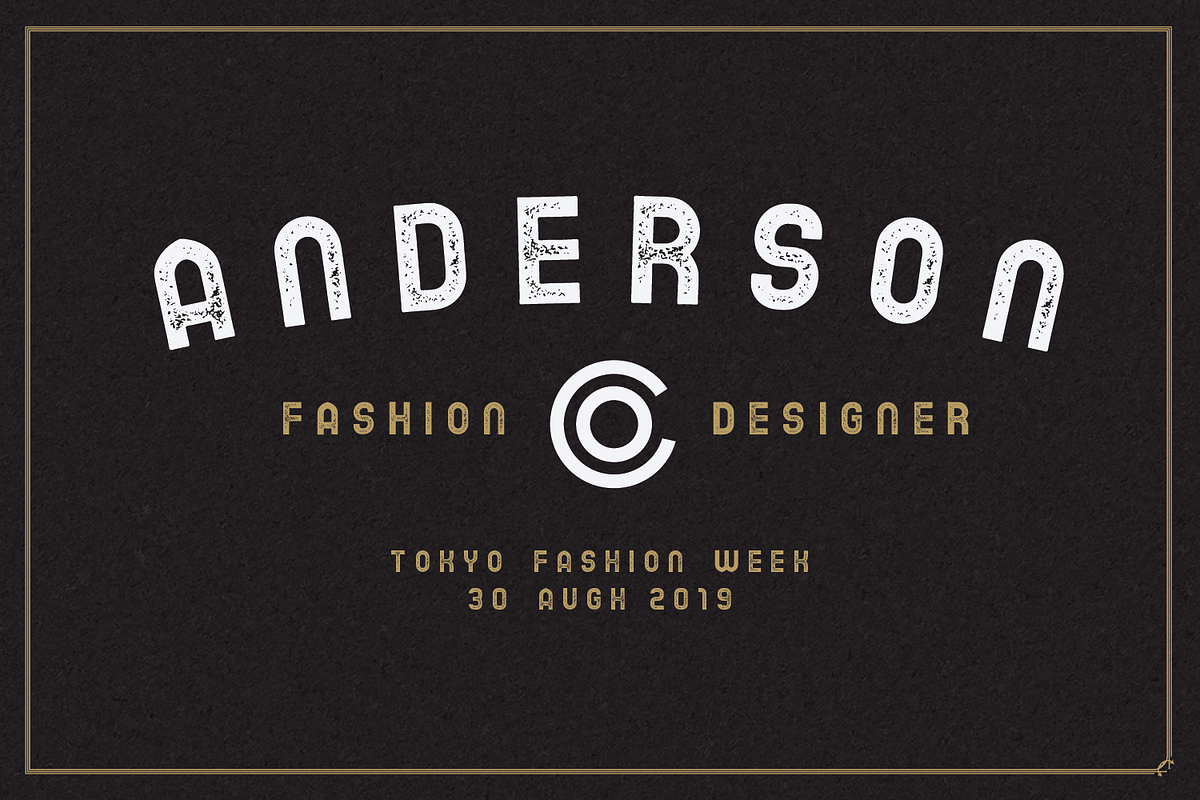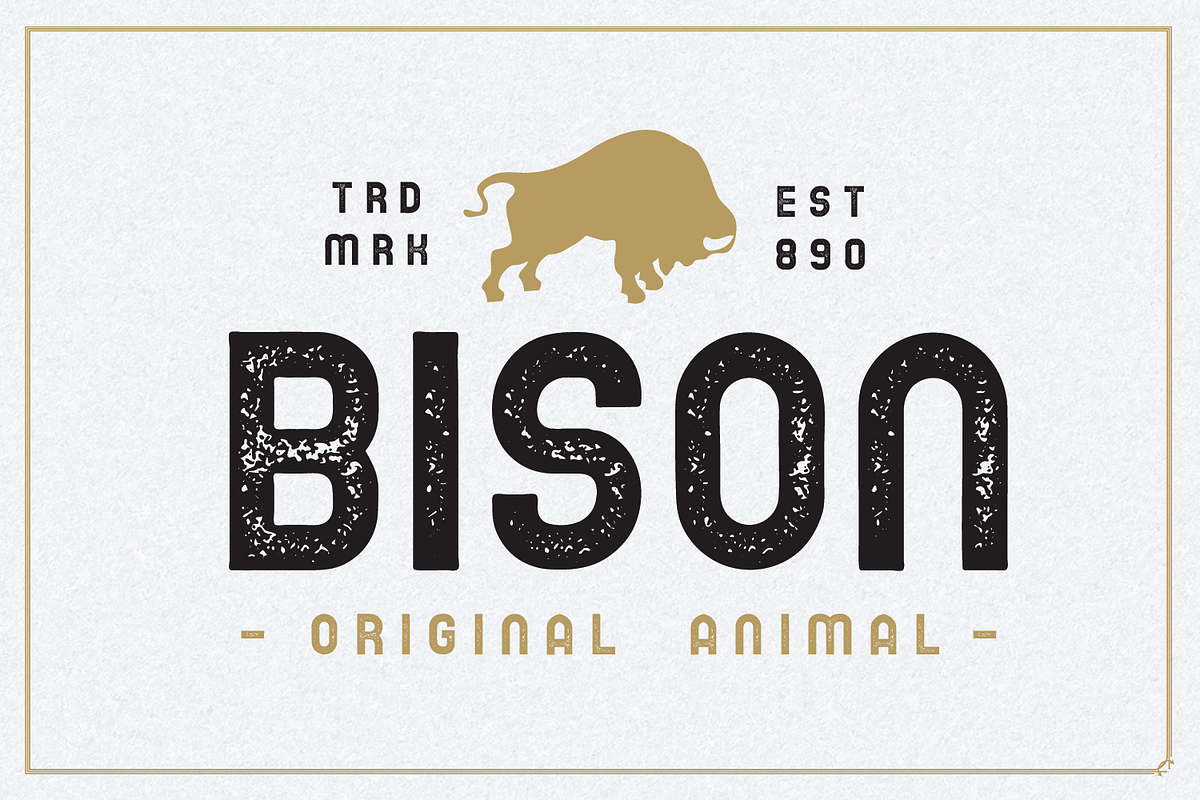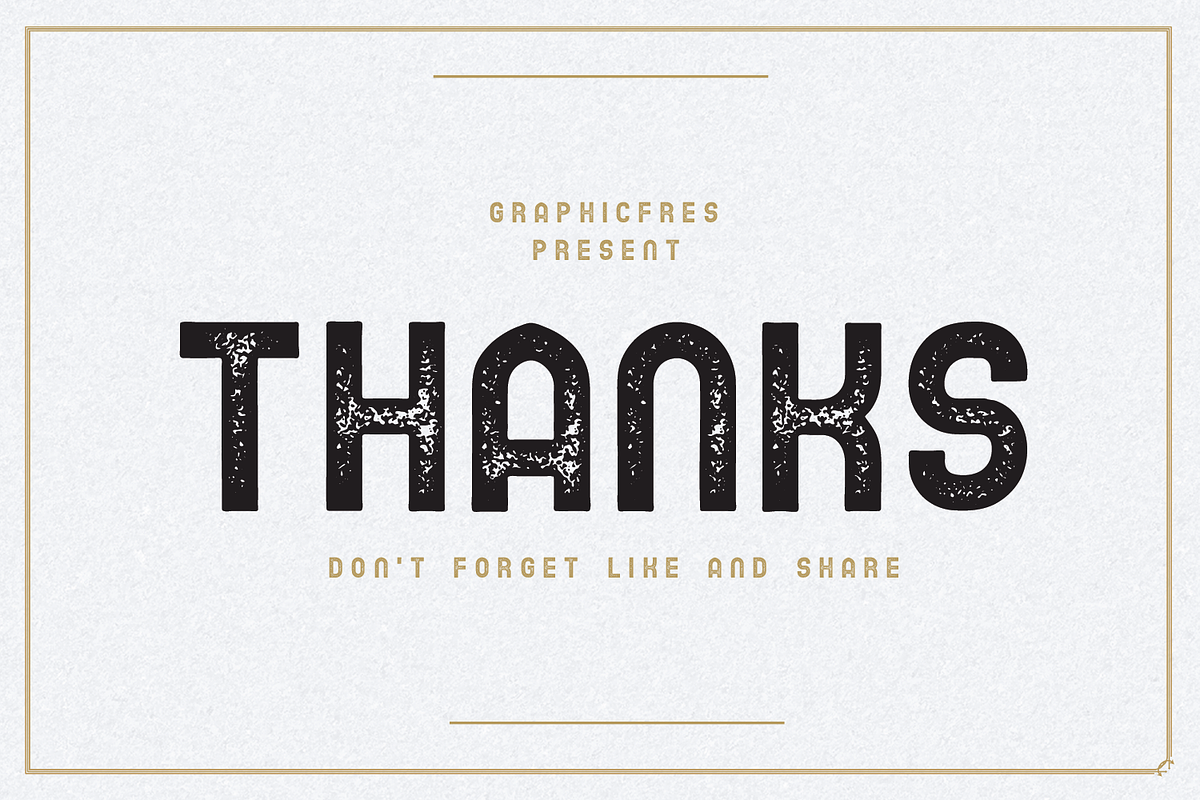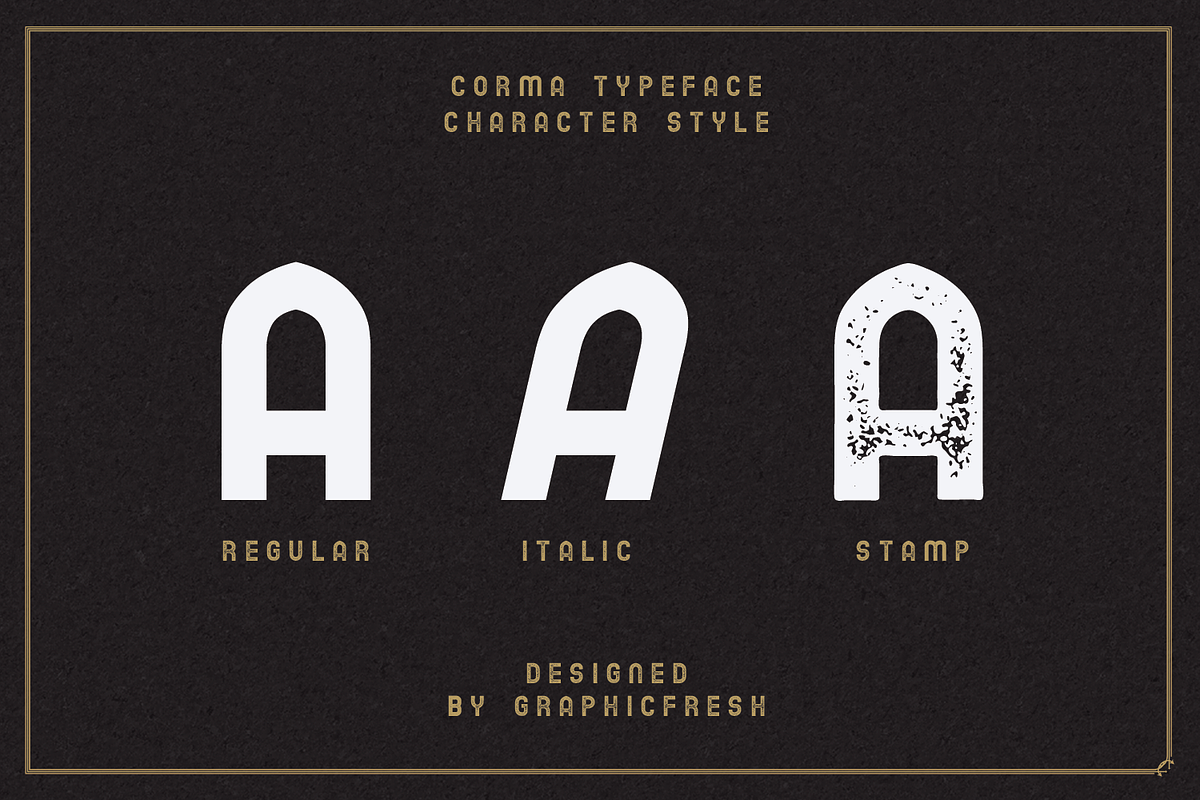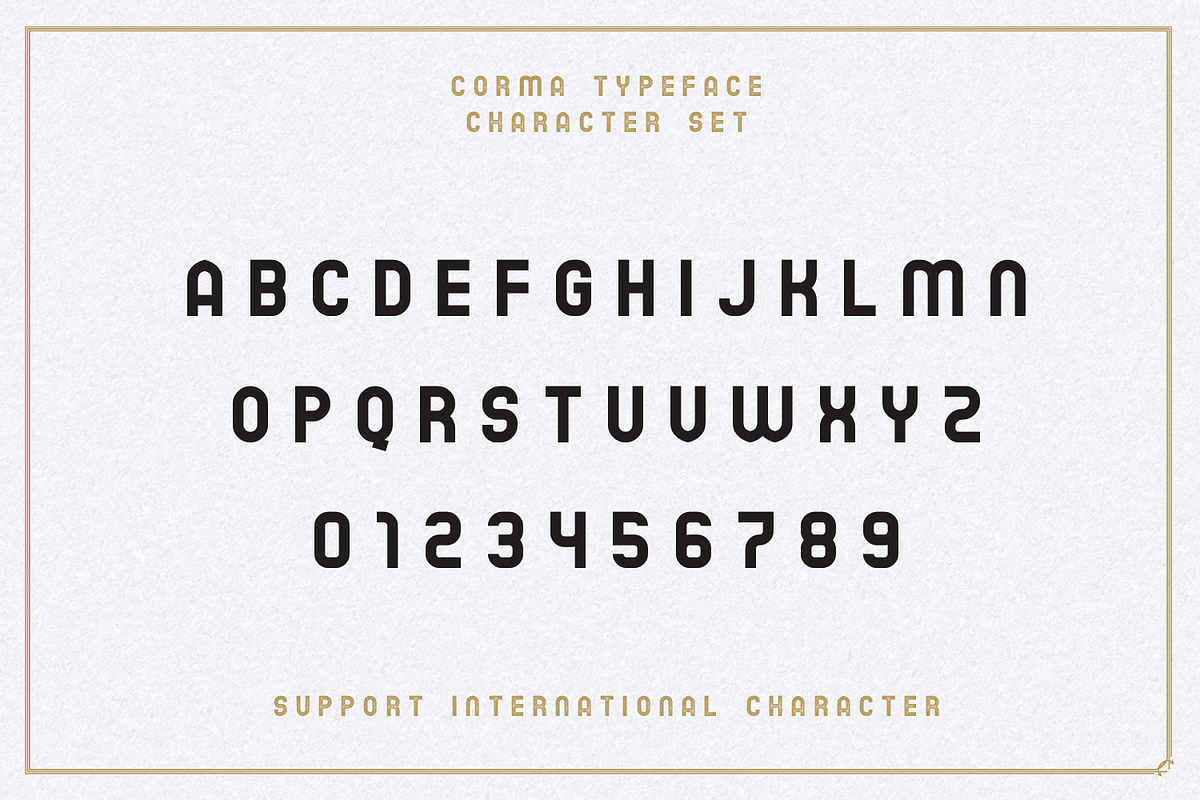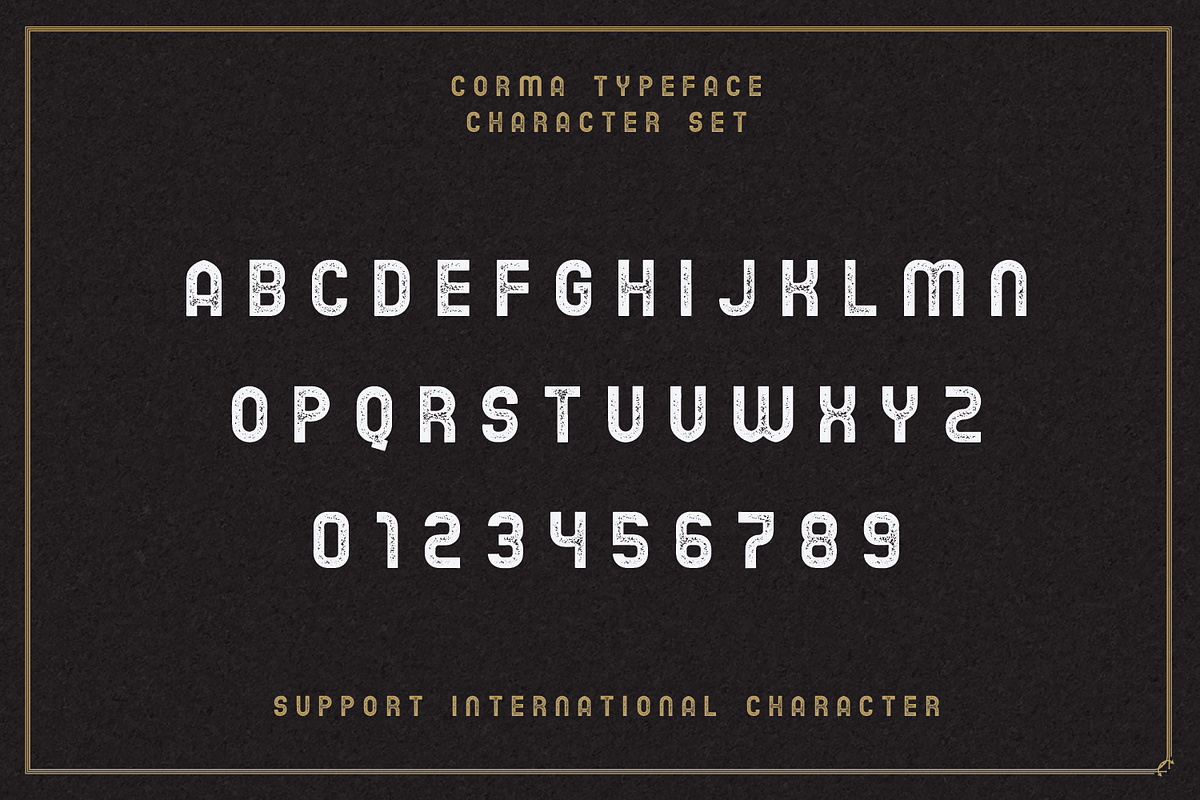
We love dates. I mean, who doesn’t? These were probably our favorite fruits since childhood! At least for most of us. And the healthiest too. Now that’s something new, isn’t it? While we have always reveled in the taste, seldom have we considered the incredible benefits of dates. So we named this font as the date palm, in Indonesian called "Corma"
Corma is a vintage display family including Regular and Textured versions as well as Italic versions of each. it's perfect for logos, name card, magazine layouts, invitations, headers, or even large-scale artwork. Corma includes 4 OTF & TTF files within the Zip folder.